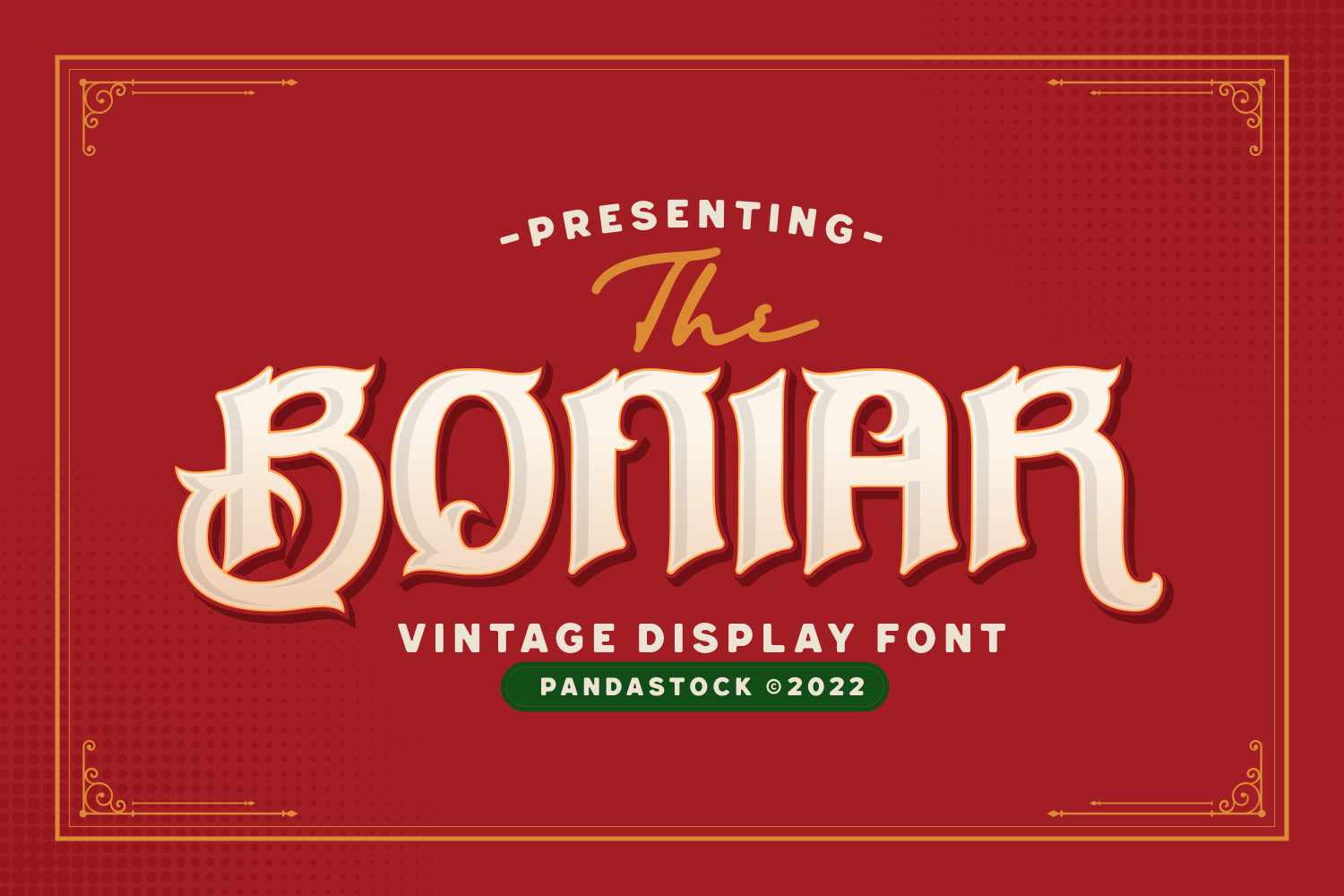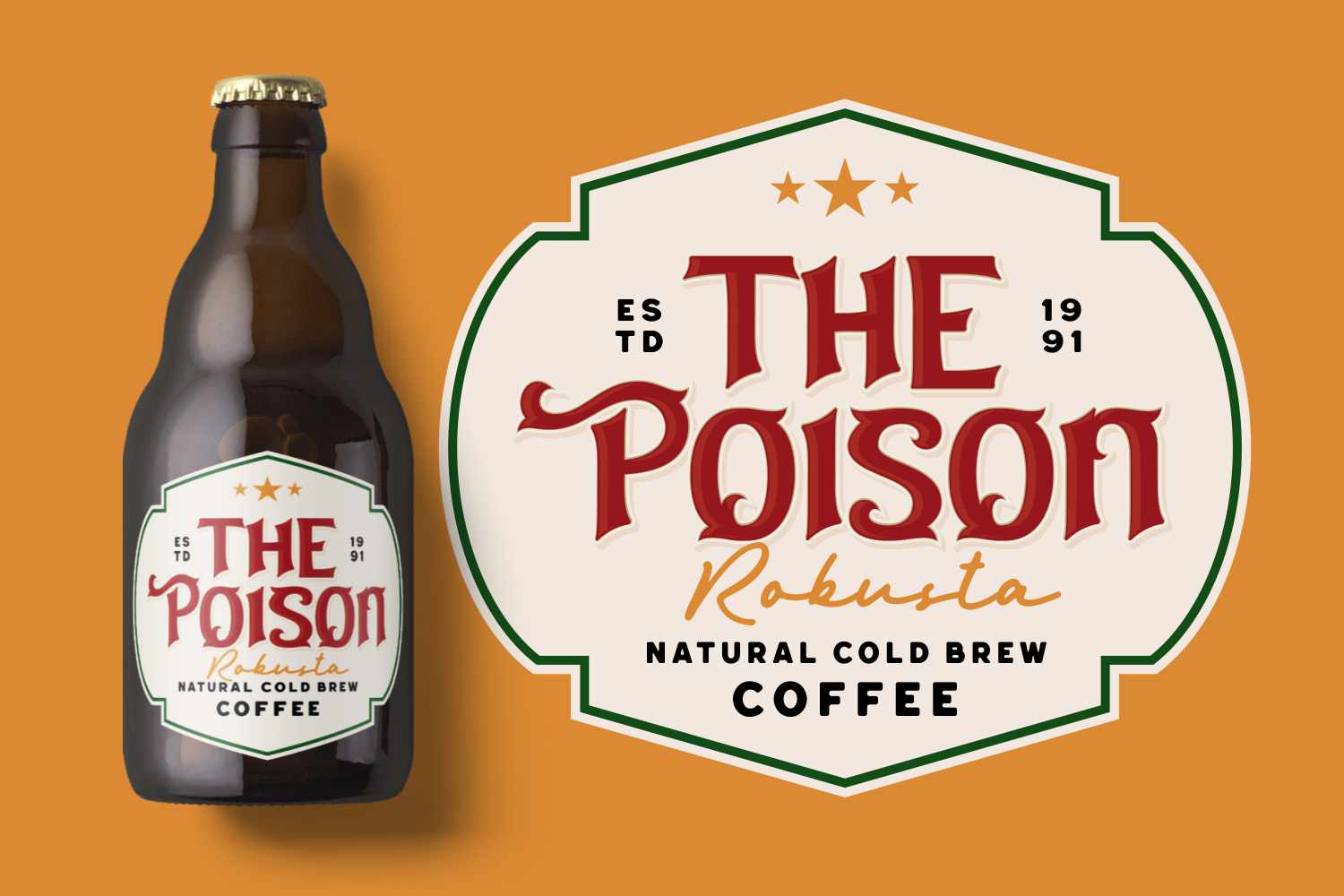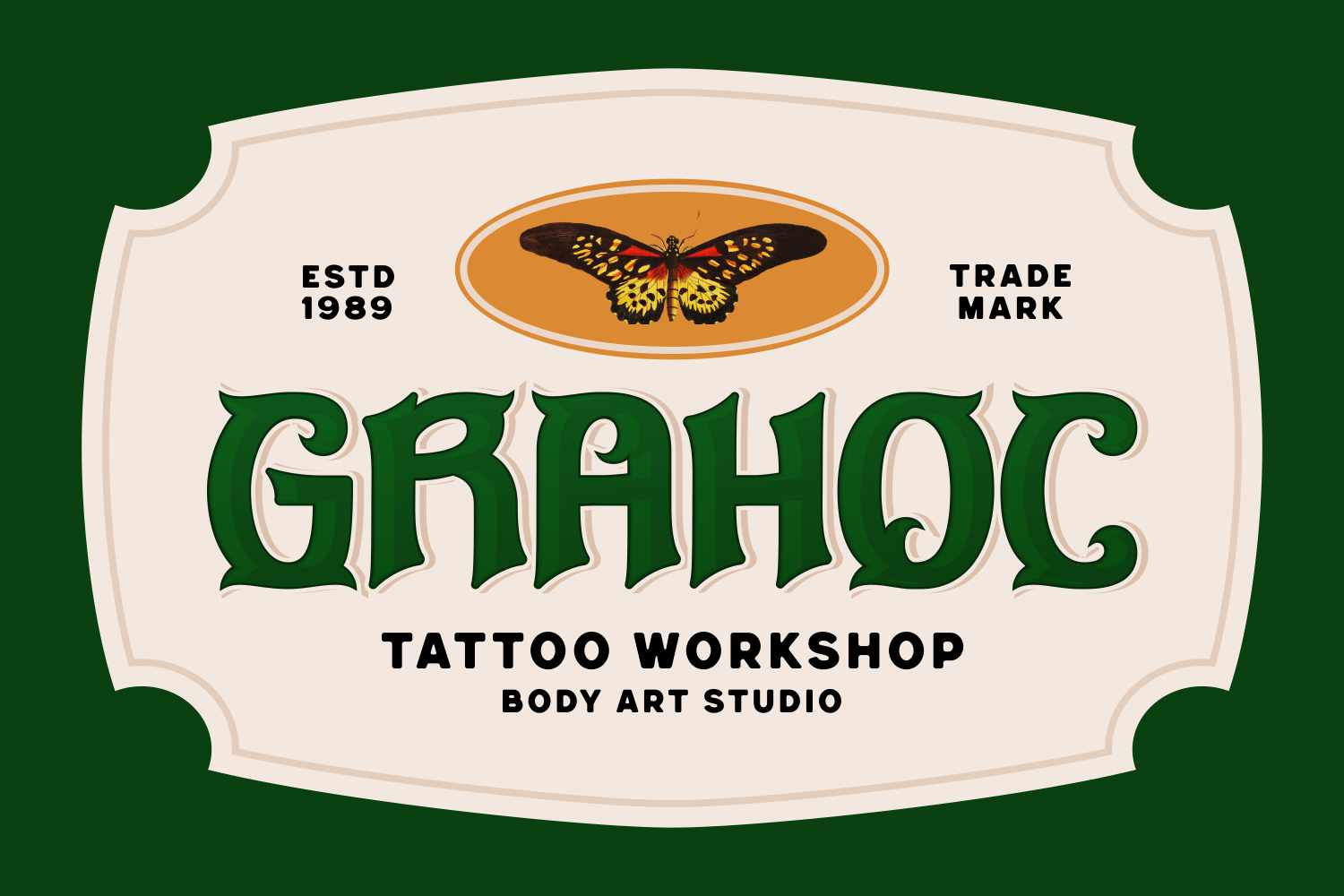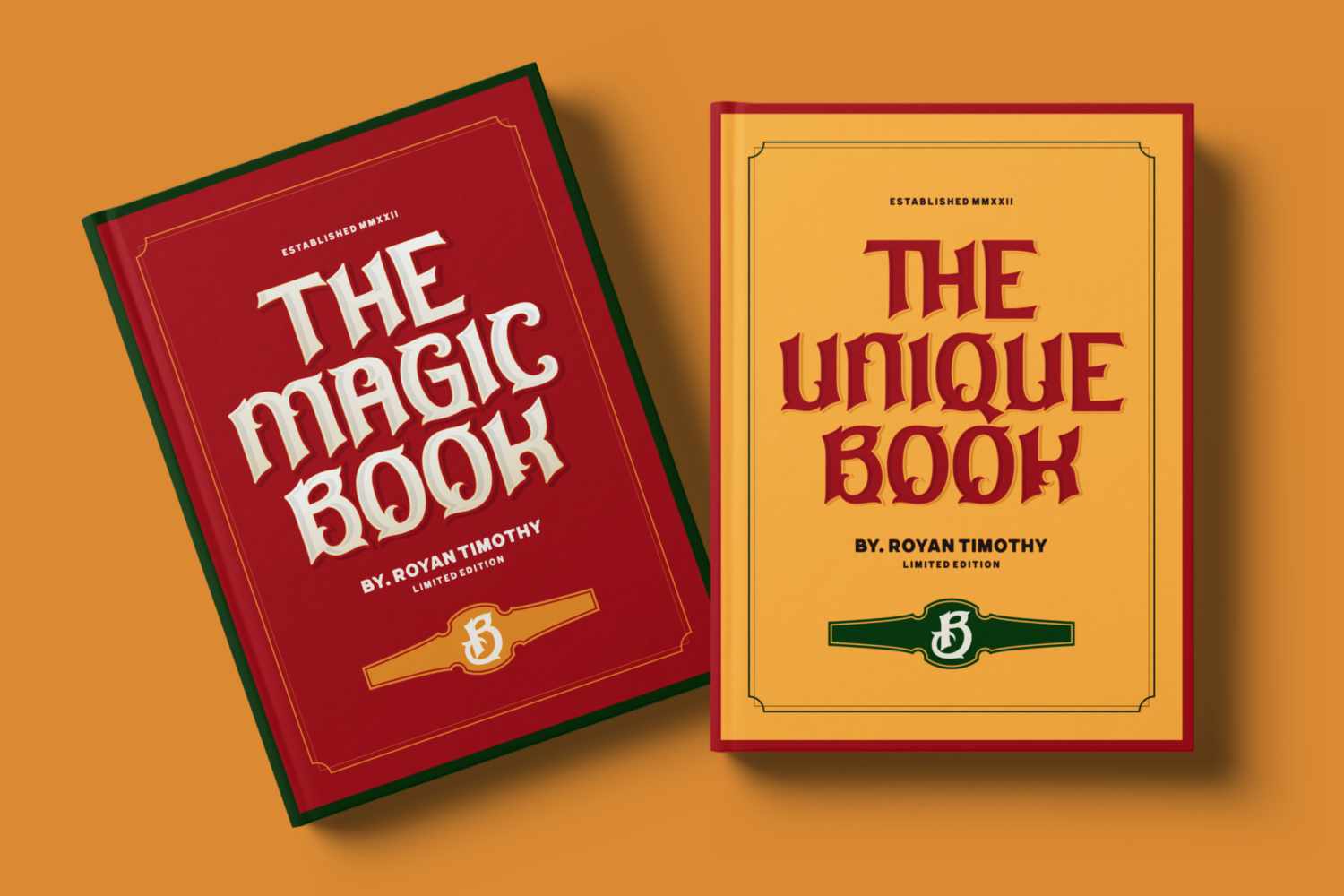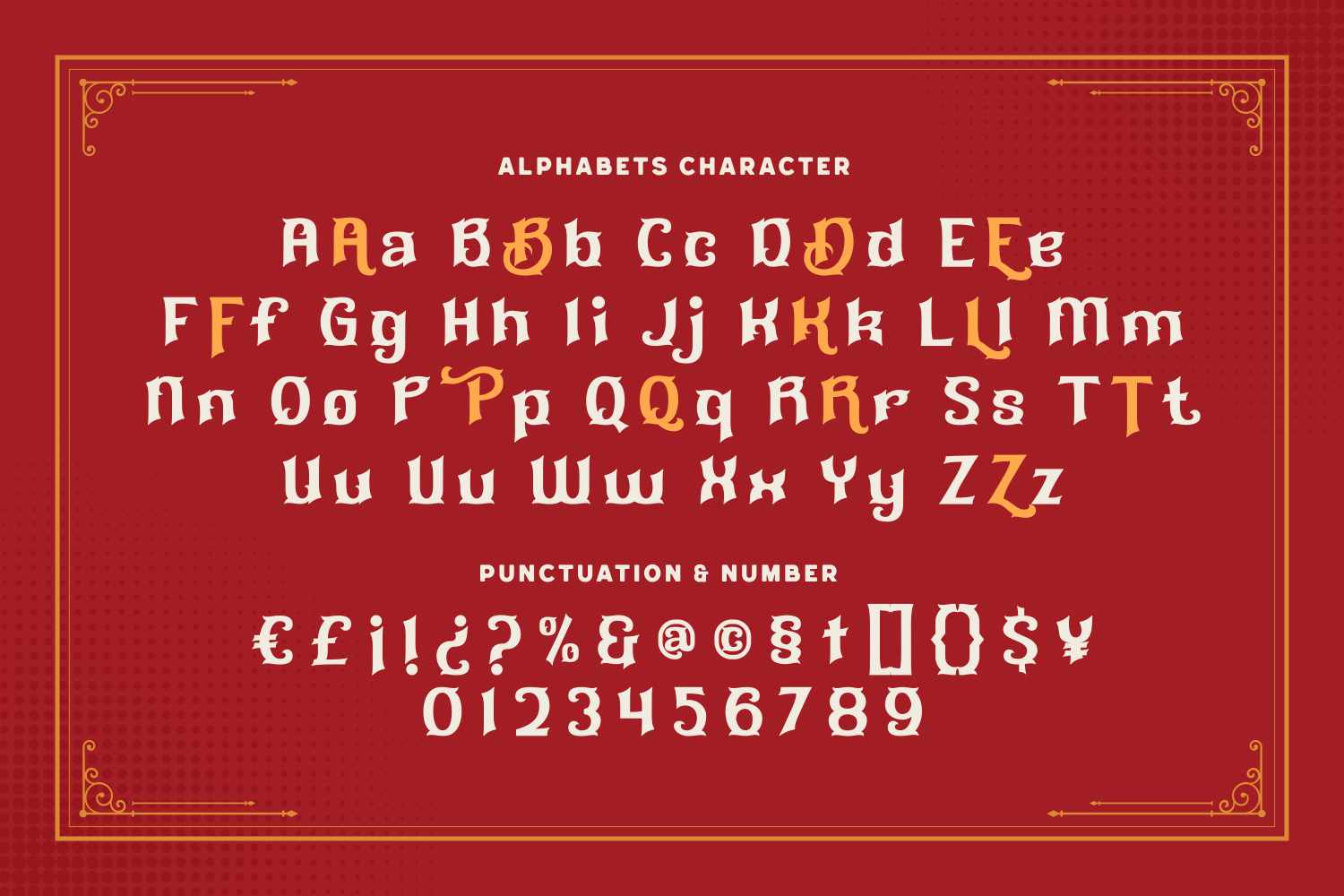
Boniar is a vintage display font that blends bold curves with intricate details, making it perfect for retro-inspired designs. Its strong letterforms carry a nostalgic feel reminiscent of classic signage, labels, and posters, while the ornamental touch adds a sense of sophistication. With its striking presence, Boniar instantly elevates branding projects, product packaging, and headline displays that demand attention.
Designed with versatility in mind, Boniar offers both authenticity and style, making it an excellent choice for coffee labels, tattoo studios, book covers, or any design seeking a vintage character. Its balanced mix of sharp serifs and flowing strokes creates a timeless aesthetic, ensuring your project stands out with personality and charm.
Boniar